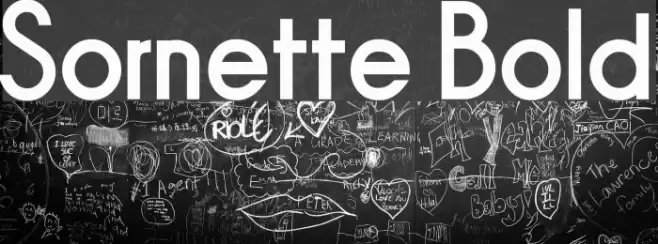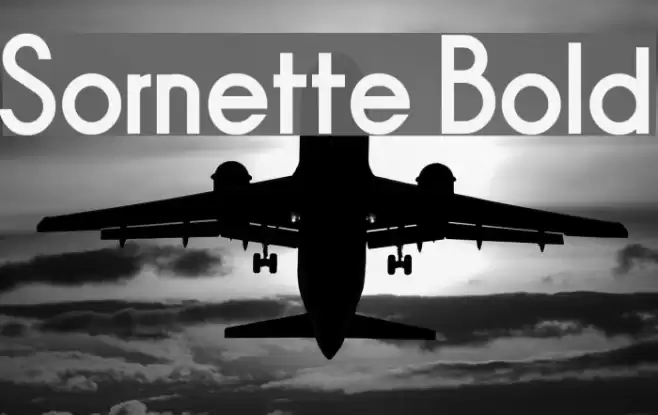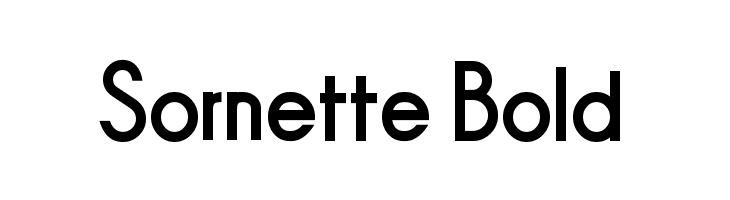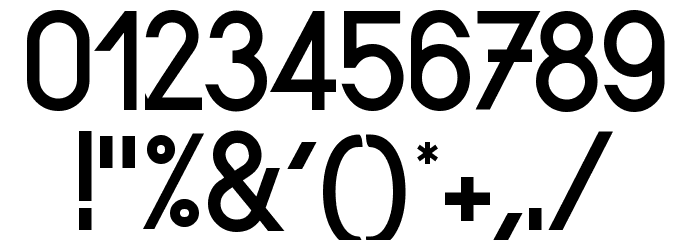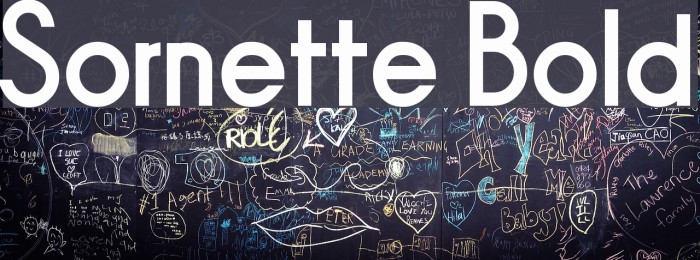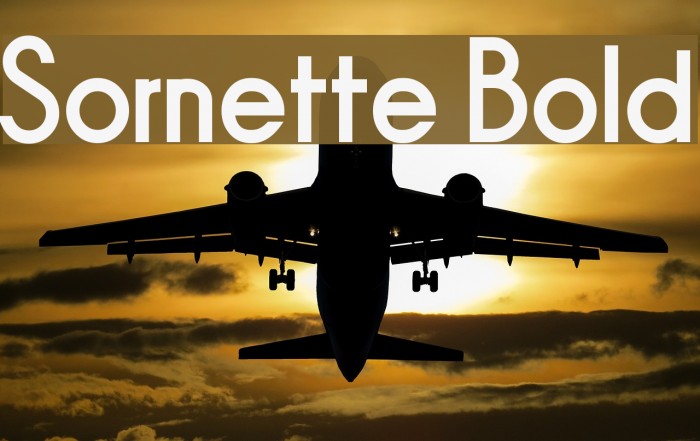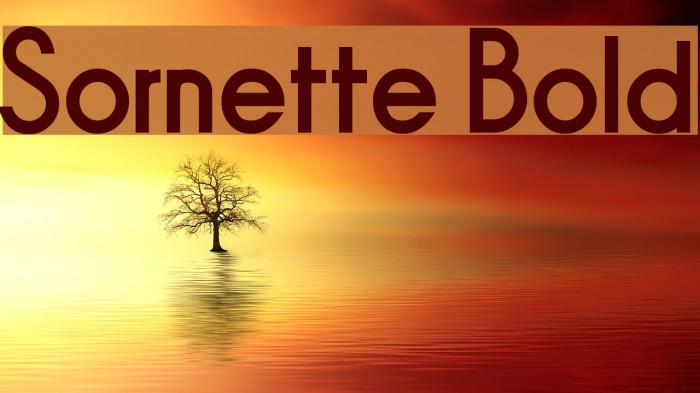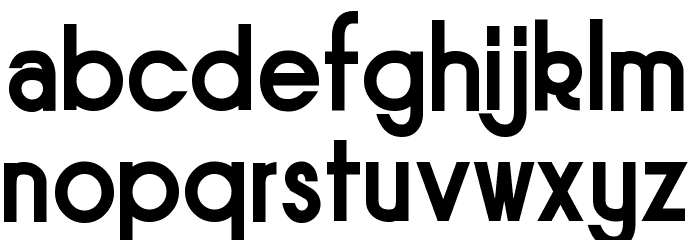
Sornette Bold Font
Sornette Bold Description
This font features a bold and modern sans-serif design, characterized by clean lines and a geometric structure. The uppercase and lowercase letters maintain a consistent height, contributing to a uniform appearance. The numerals are clear and easy to read, making them suitable for various applications. Special characters are well-defined, enhancing the font's versatility. Its bold weight and straightforward style make it ideal for creating impactful headlines and titles.
A bold, modern sans-serif font with clean lines and geometric structure from Uncategorized fonts.
- Proposed Projects: Ideal for branding, advertising, headlines, posters, and digital media where a strong, modern look is desired.